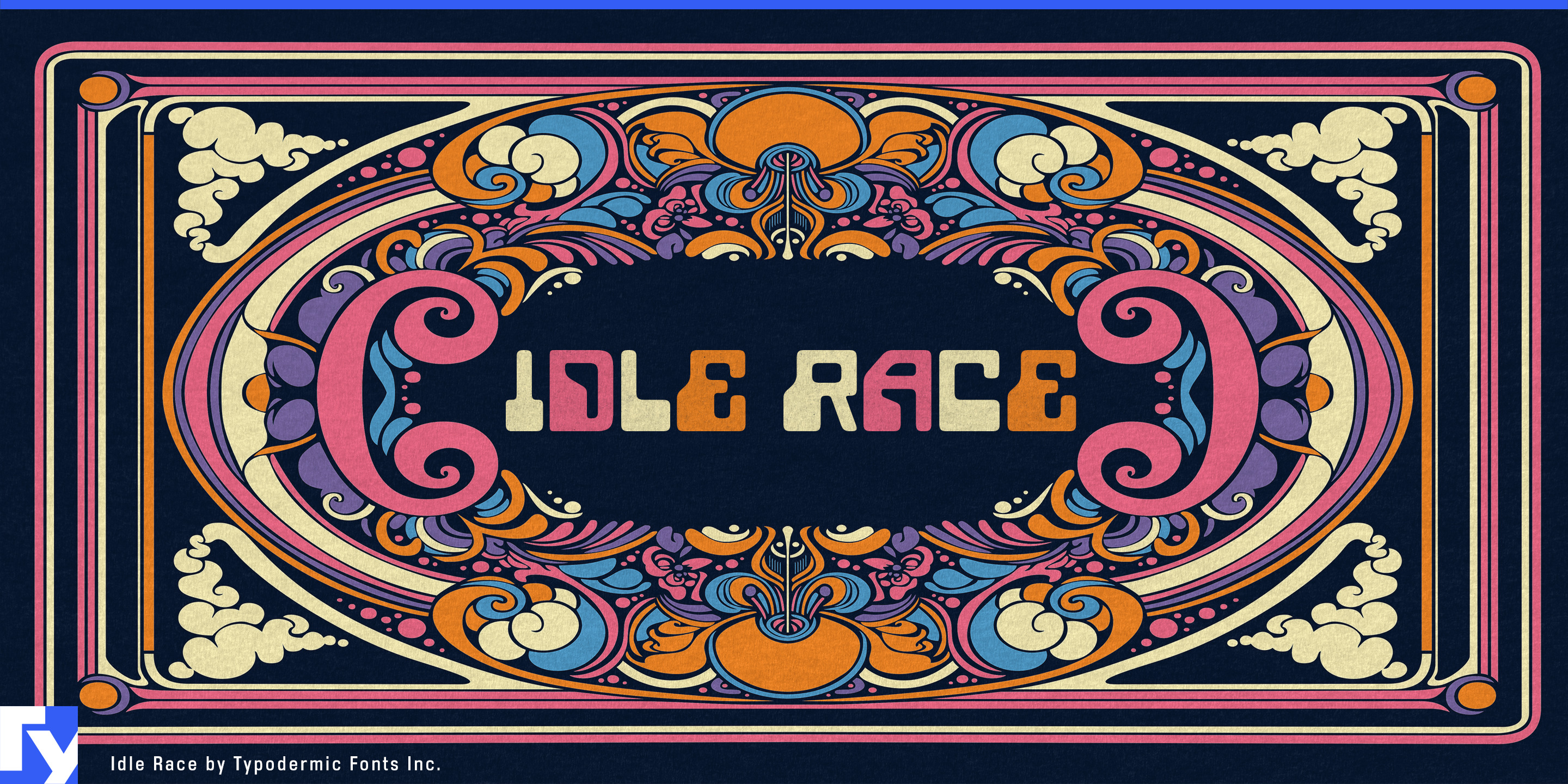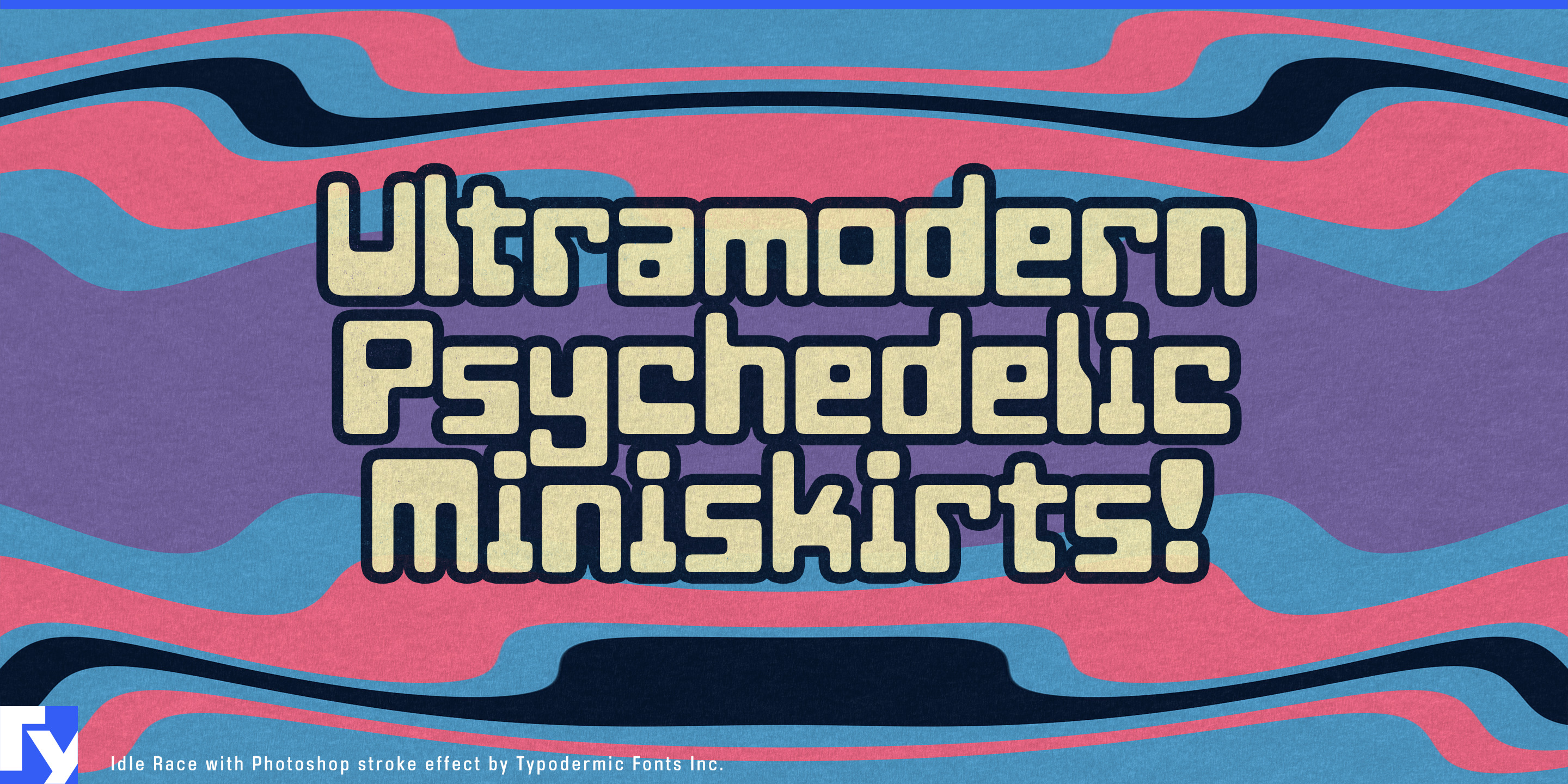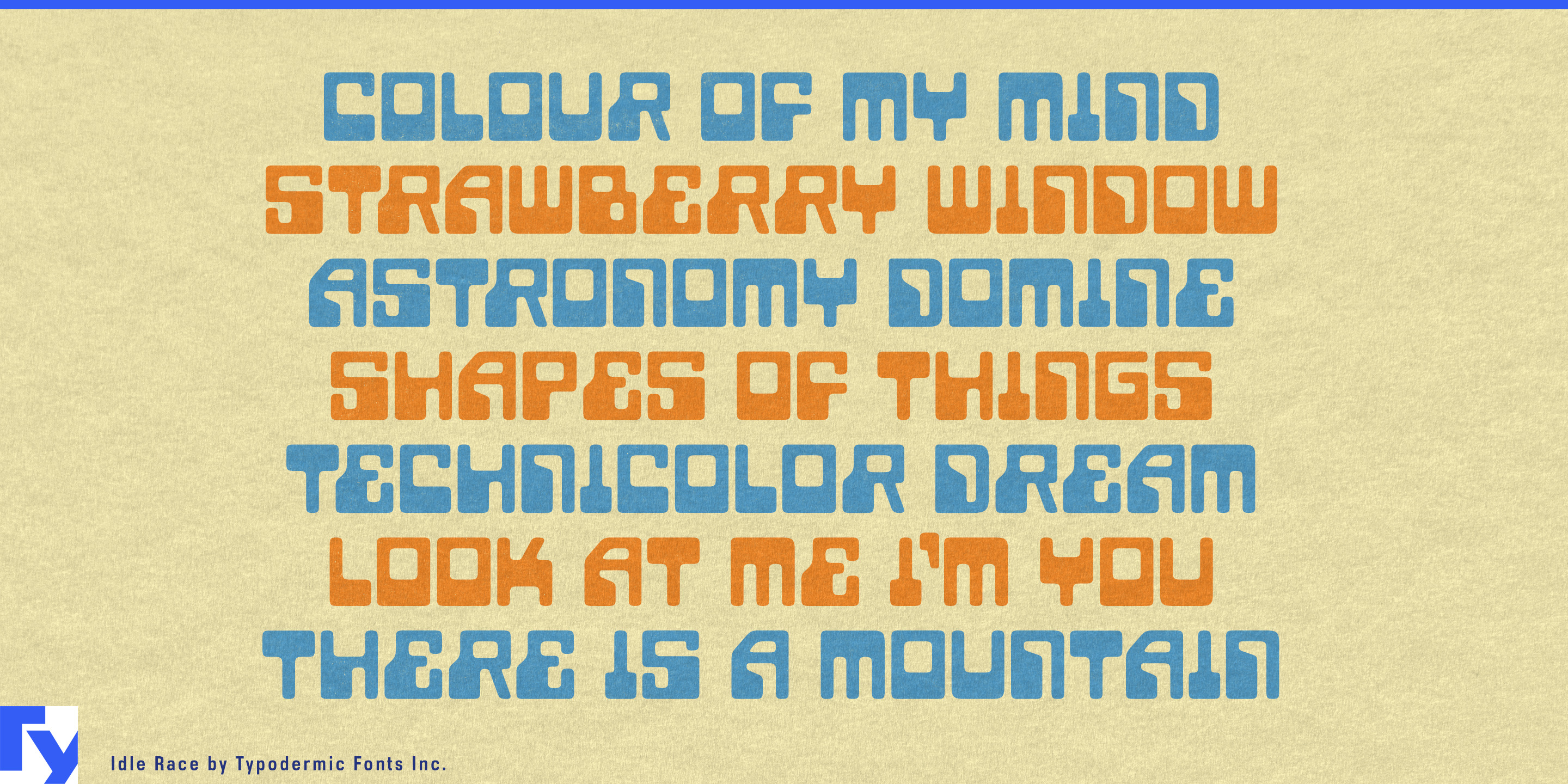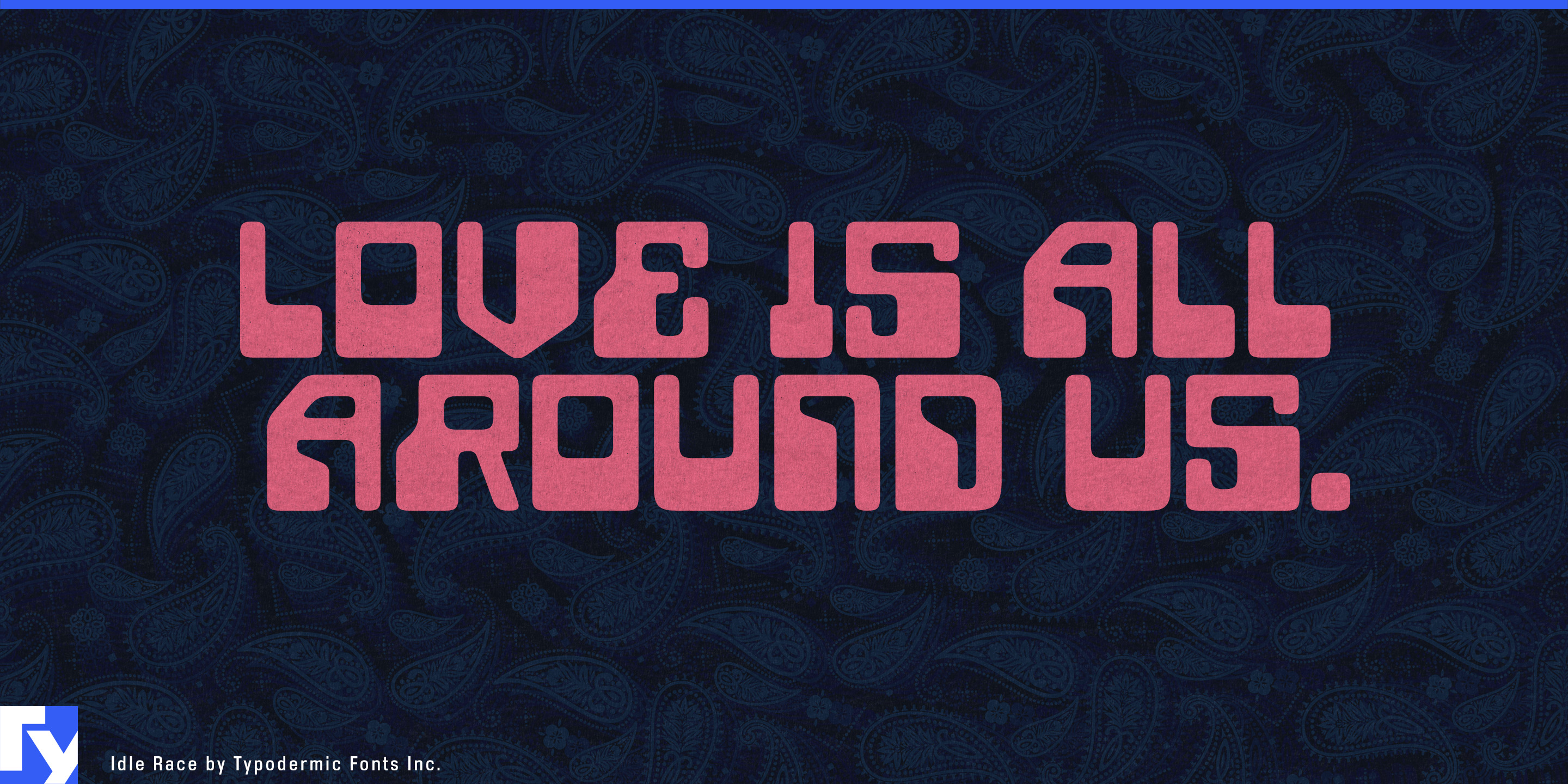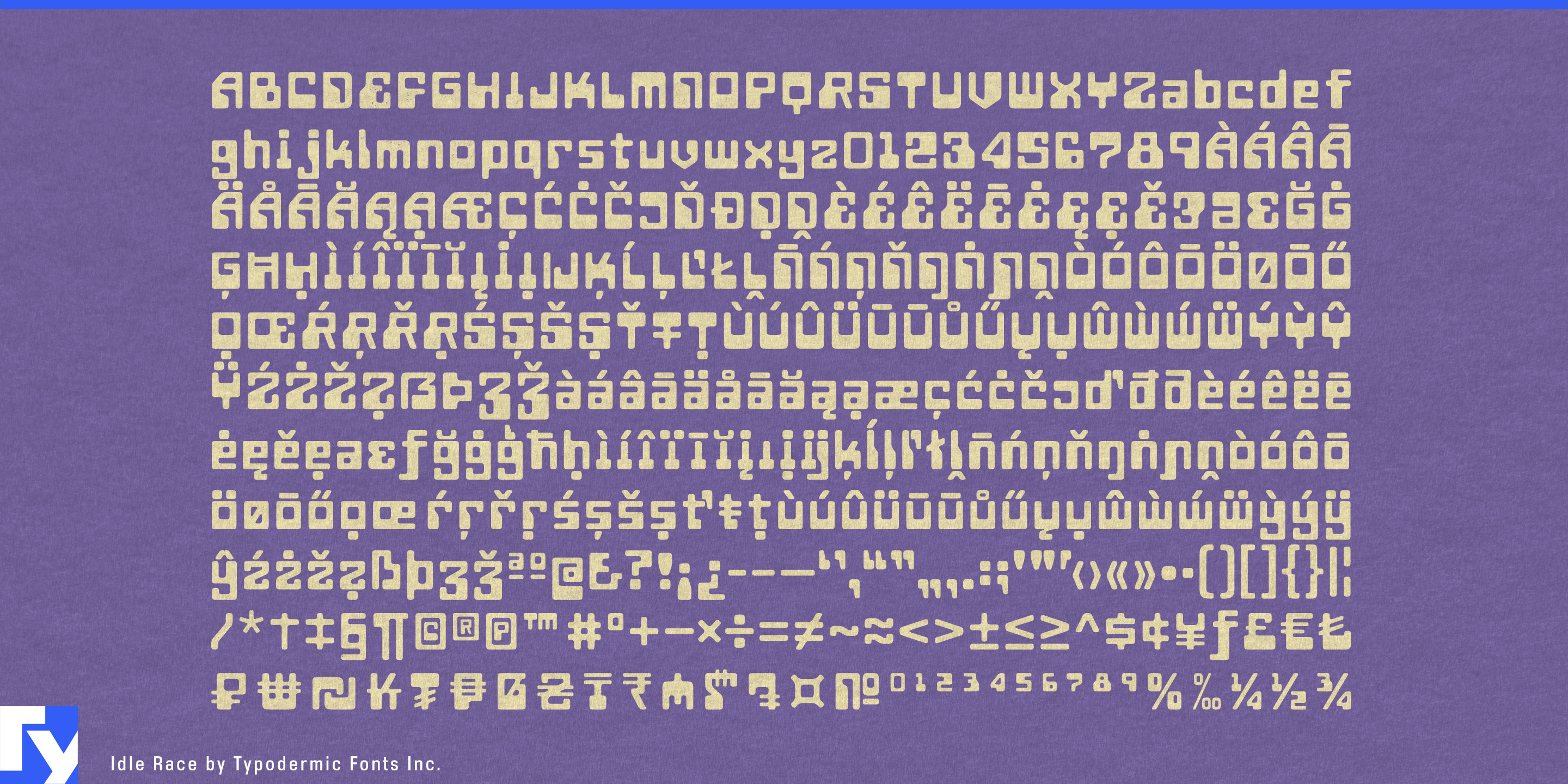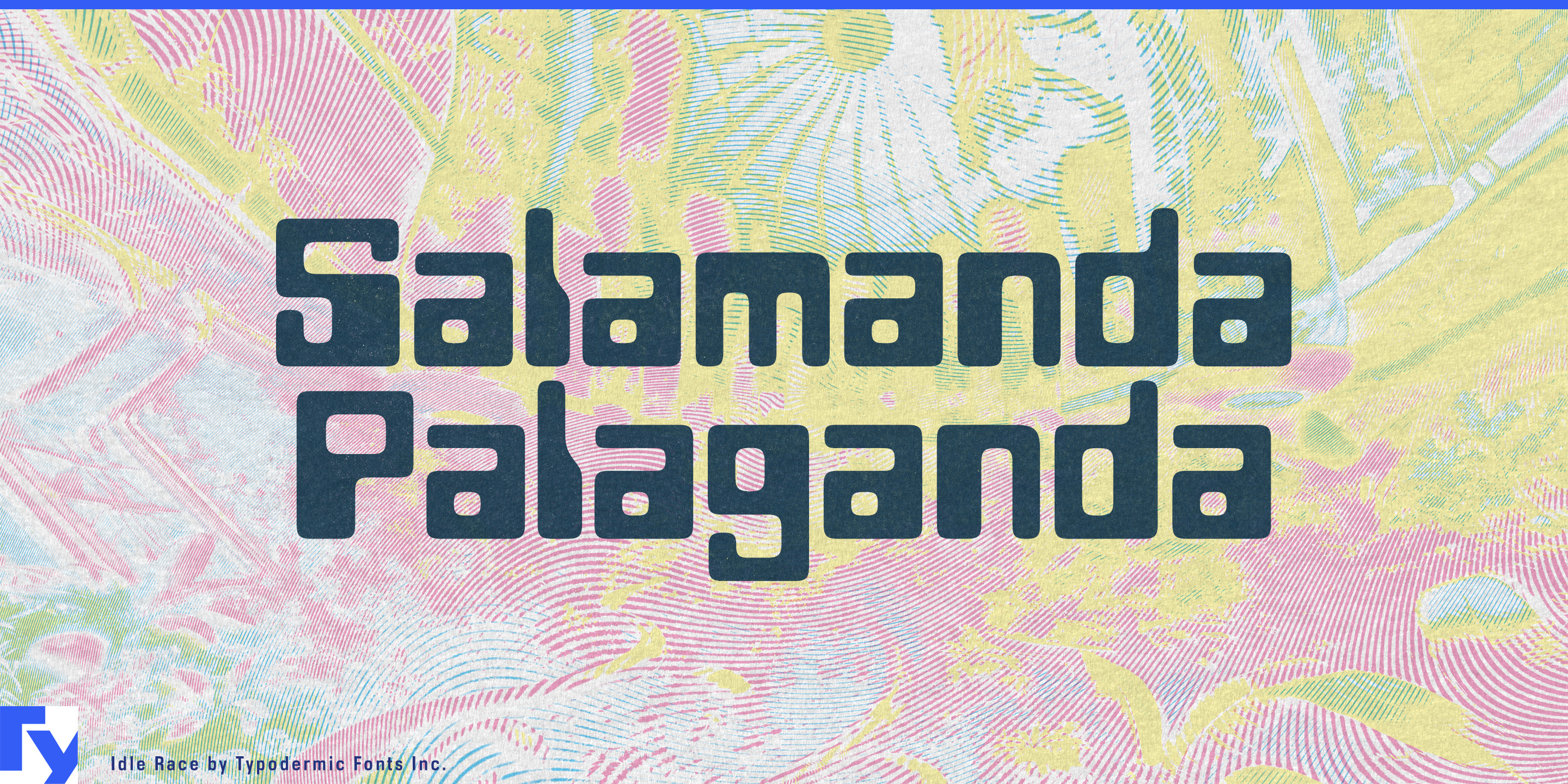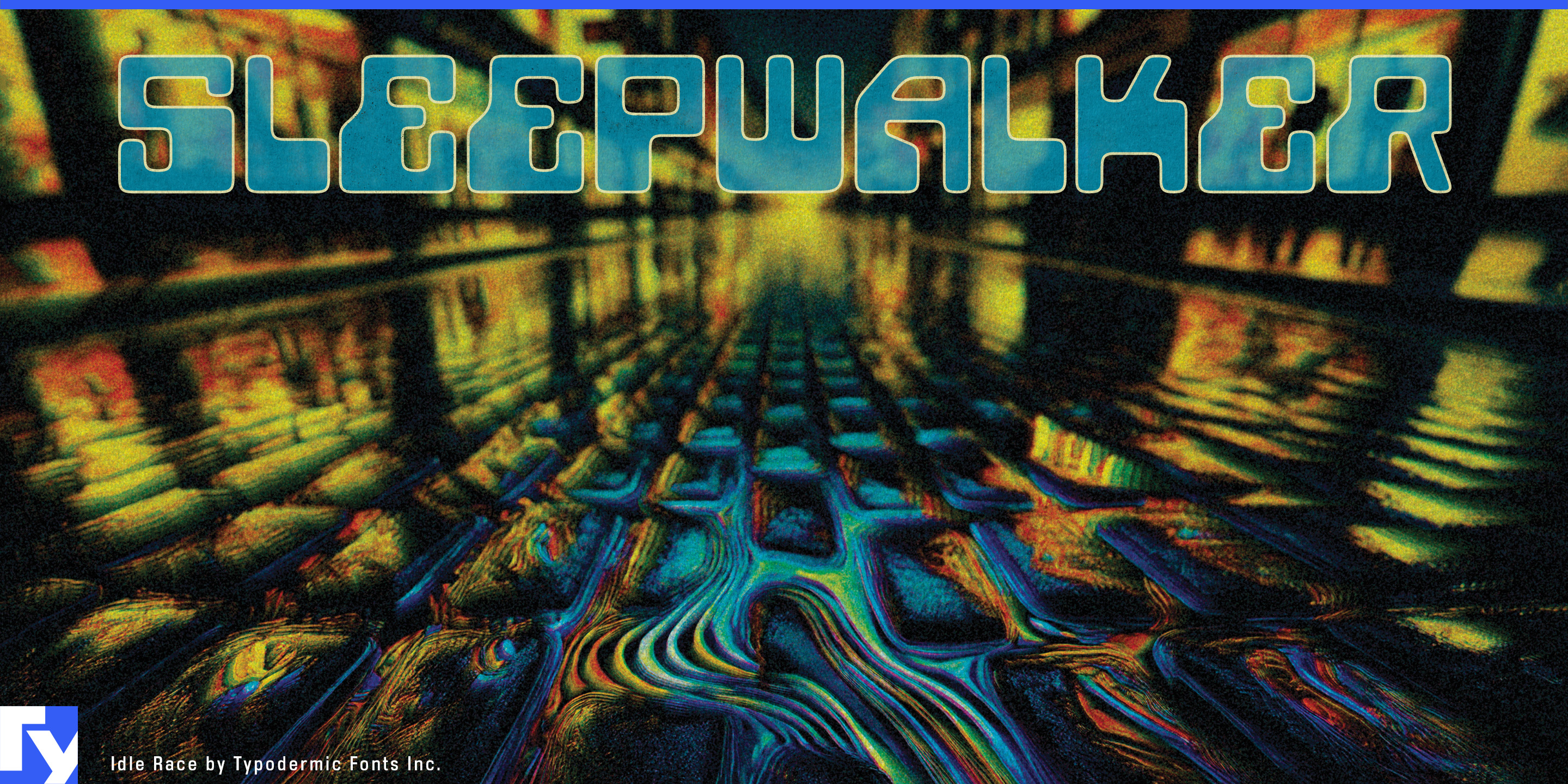
Idle Race
Idle Race combines machine-made geometry with swollen, rounded forms that feel more like molded plastic than technical lettering. The result sits in an unusual space between mechanical structure and psychedelic volume.
Bowling equipment gives that collision a natural home. Modern bowling balls are smooth molded objects whose colour often swirls, marbles or blooms through the surface. Idle Race can handle ball model names, box graphics, pro-shop displays and tournament titles while echoing both the rounded material and the distorted geometry of the product itself.
Disc golf offers a related application. Swirled, pearlescent, translucent and colour-burst plastics can turn the material into part of a disc’s identity; Idle Race works well for model names, limited-edition stamps, tournament graphics and retail displays, leaving flight numbers and other functional information to a clearer companion face.
The same mixture of machinery and softness extends into automated environments built around foam, liquid and rounded synthetic forms. Car washes can use Idle Race for tunnel names, wash-package titles and large bay graphics, while soft-serve, frozen-yogurt and slush counters can use it for product names, flavour graphics and dispenser-zone headings.
Foam slides, clogs, pool gear and other molded recreational products provide another branch, particularly where bright colour and rounded material are central to the object. Idle Race is strongest where mechanical geometry has been softened into something tactile, glossy and slightly psychedelic.